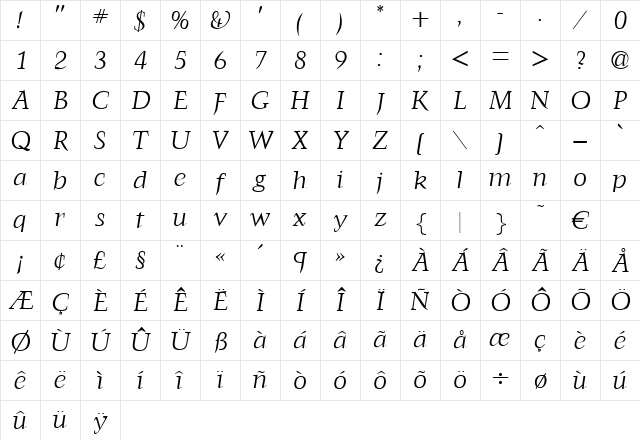
FrancoisLightItalic Regular
Design Context for FrancoisLightItalic
FrancoisLightItalic is a composed and adaptable typeface that performs quietly and consistently across a wide range of design contexts. The slanted form adds forward momentum and visual energy. Its slender proportions lend an understated elegance to any composition.